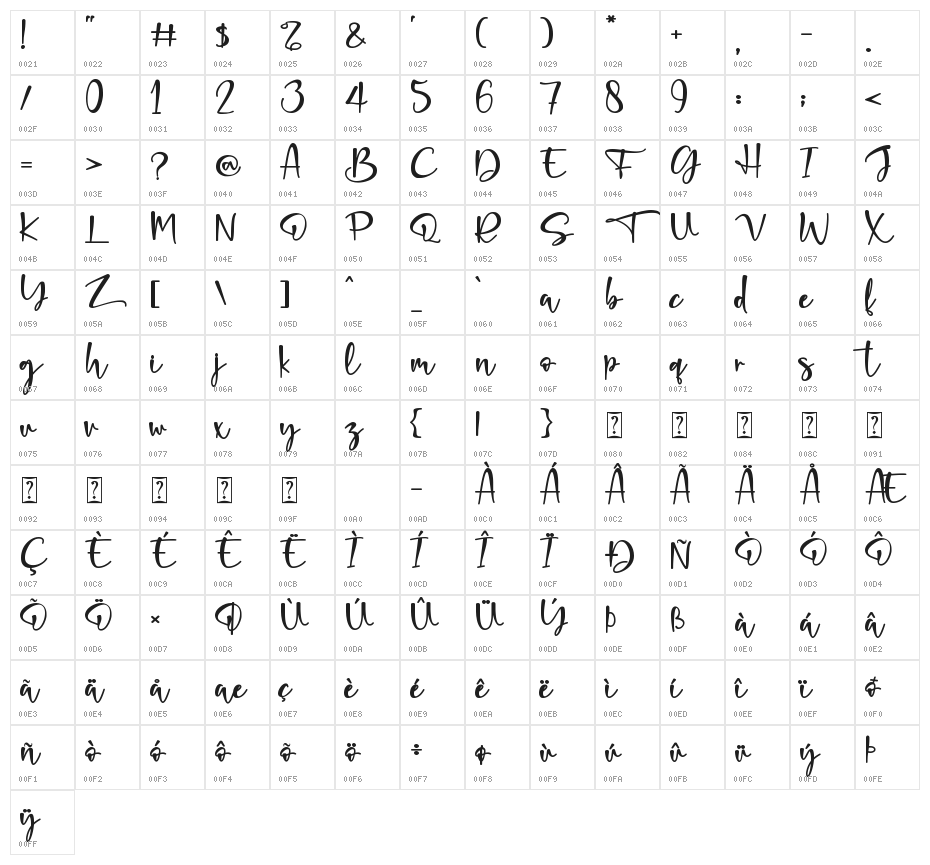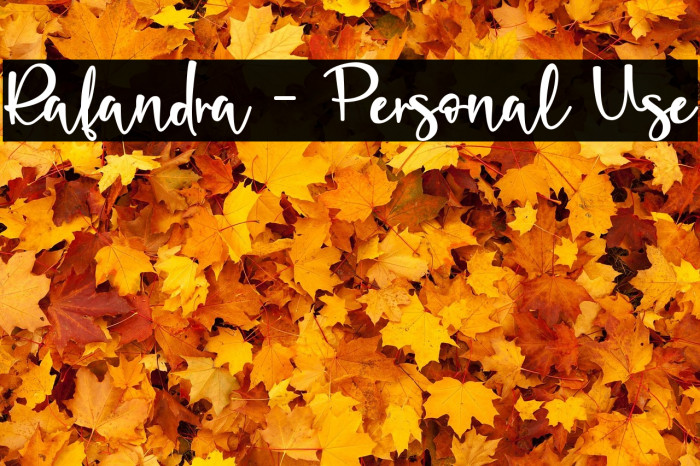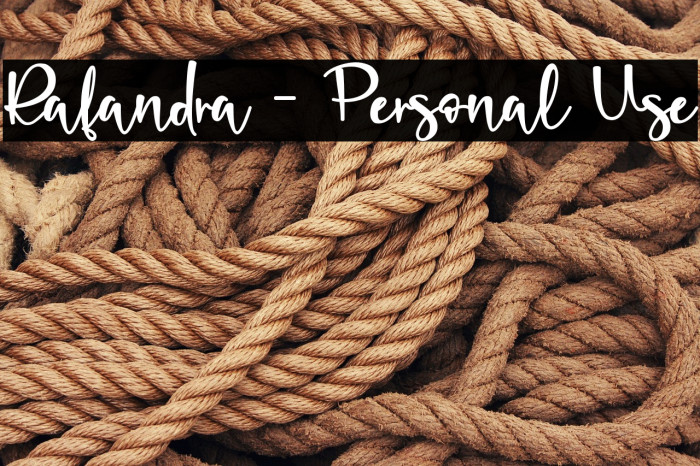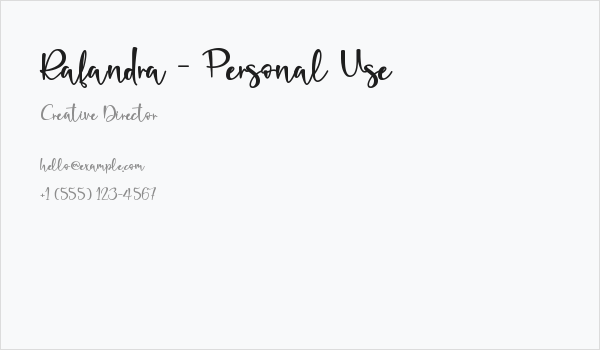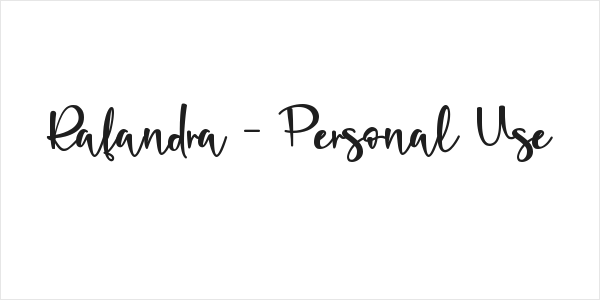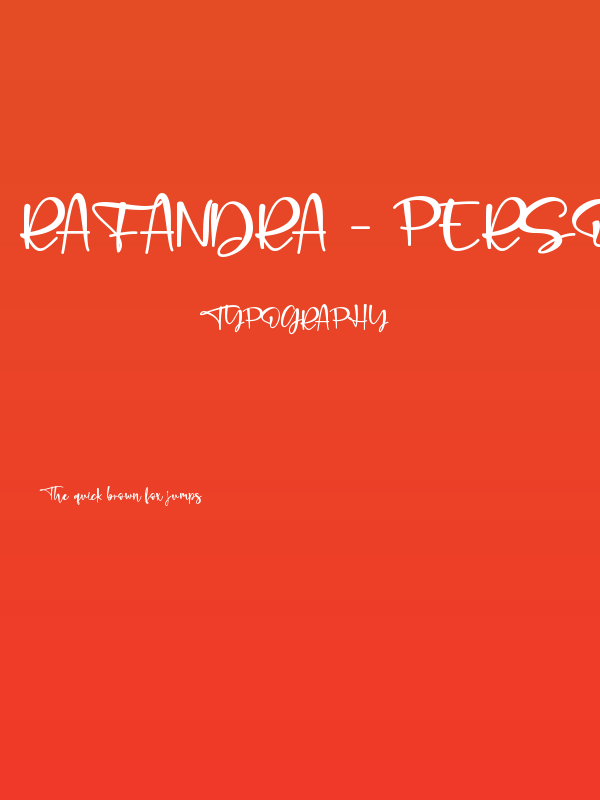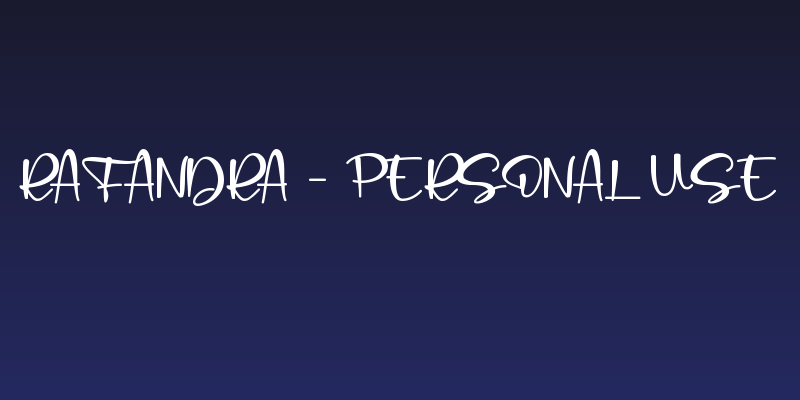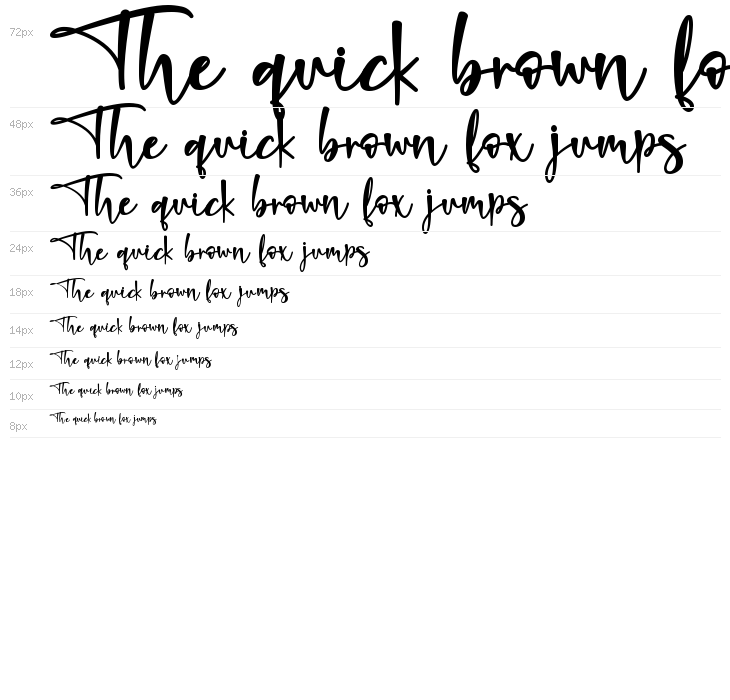
Rafandra - Personal Use Font
Rafandra - Personal Use Description
This font exhibits a lively and expressive handwritten style, characterized by its fluid and dynamic strokes. The uppercase letters are bold and slightly slanted, giving a sense of motion and energy. The lowercase letters maintain a consistent flow, with loops and curves that enhance its casual and friendly appearance. The numerals are clear and legible, matching the playful aesthetic of the alphabet. Special characters are creatively integrated, maintaining the overall whimsical feel. This font is ideal for projects that require a personal touch, such as invitations, greeting cards, or branding materials that aim to convey warmth and approachability.